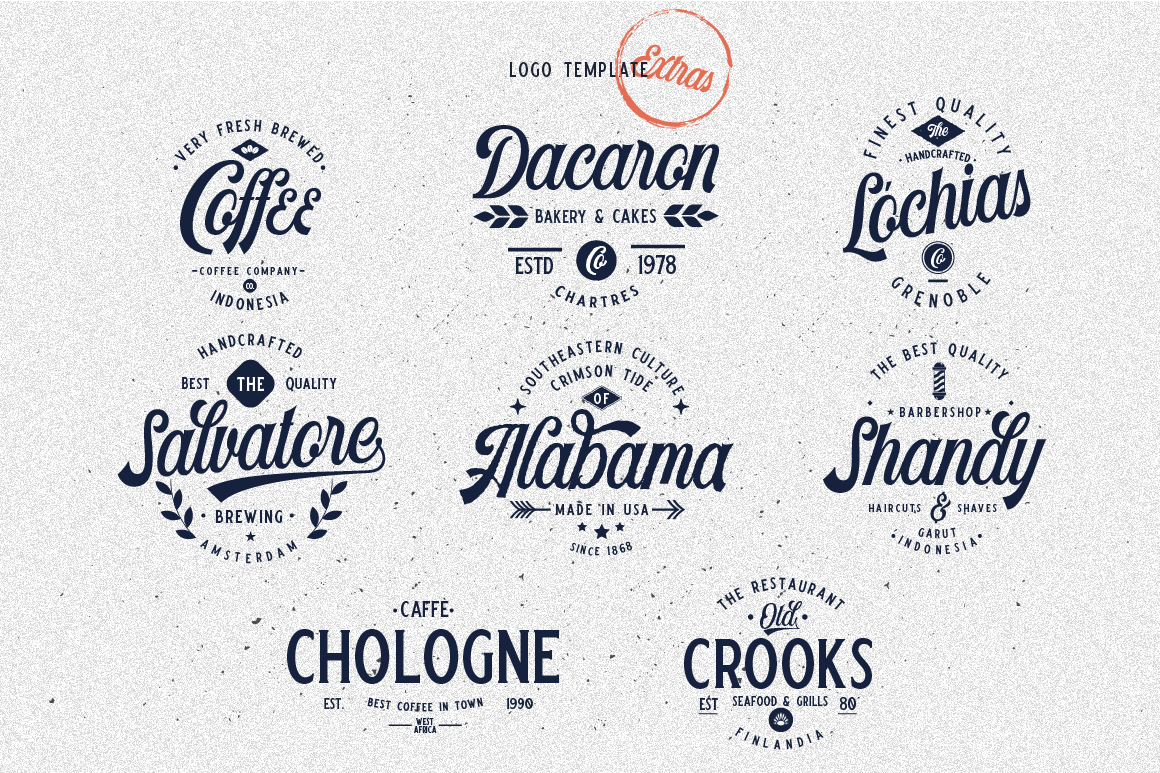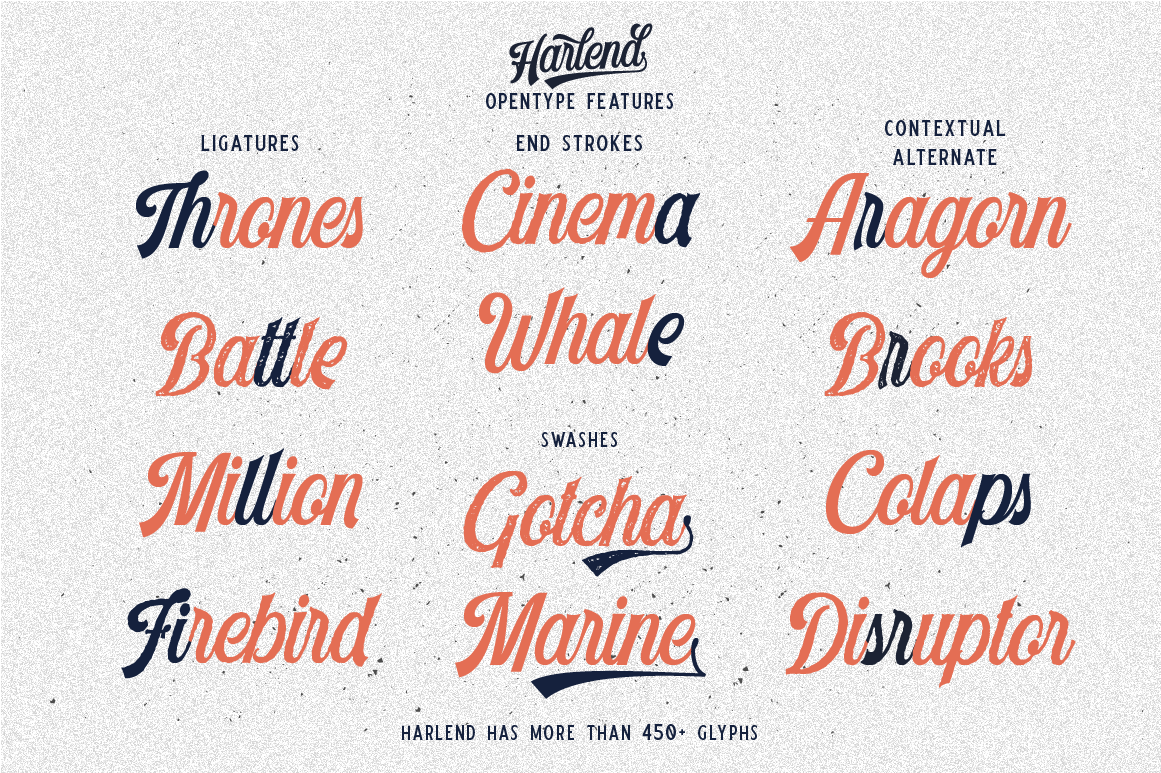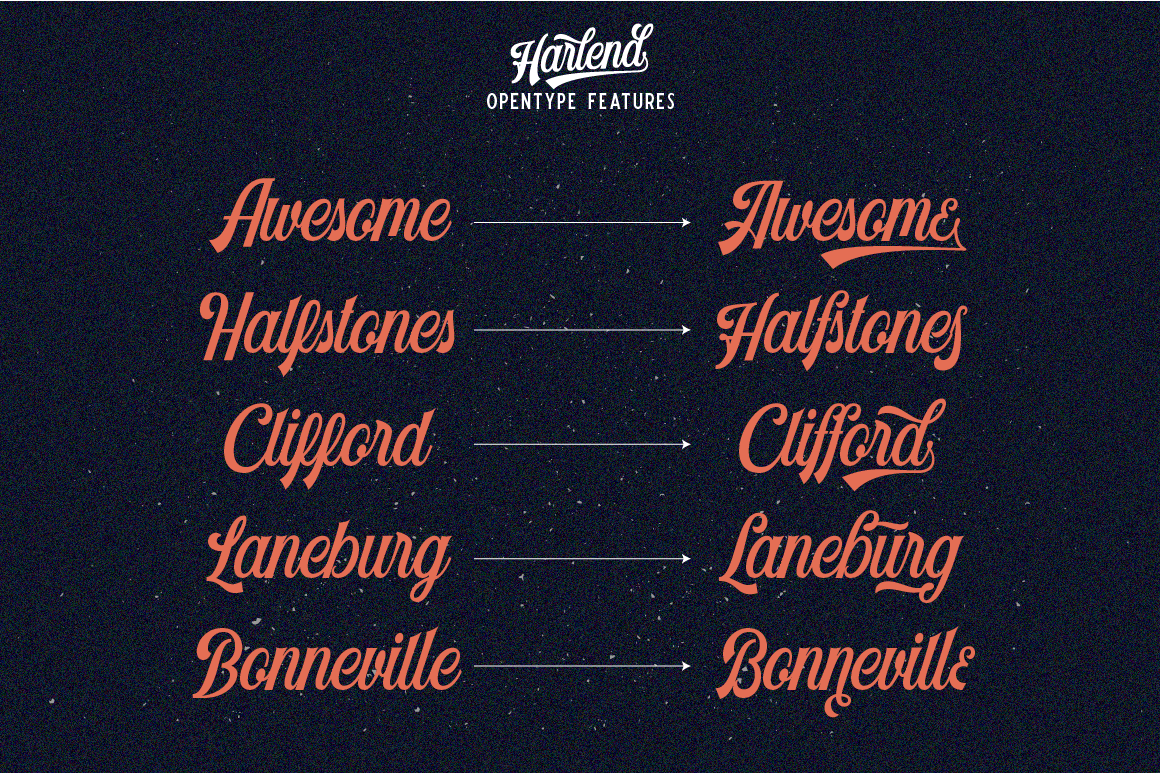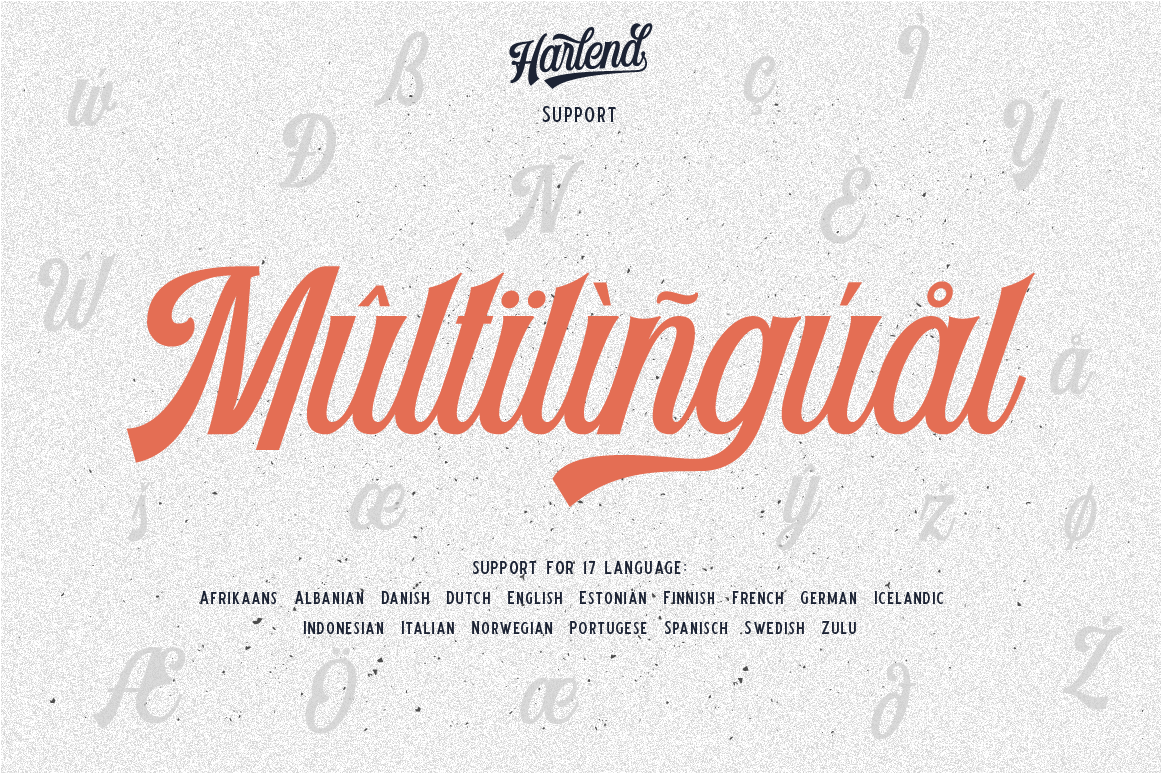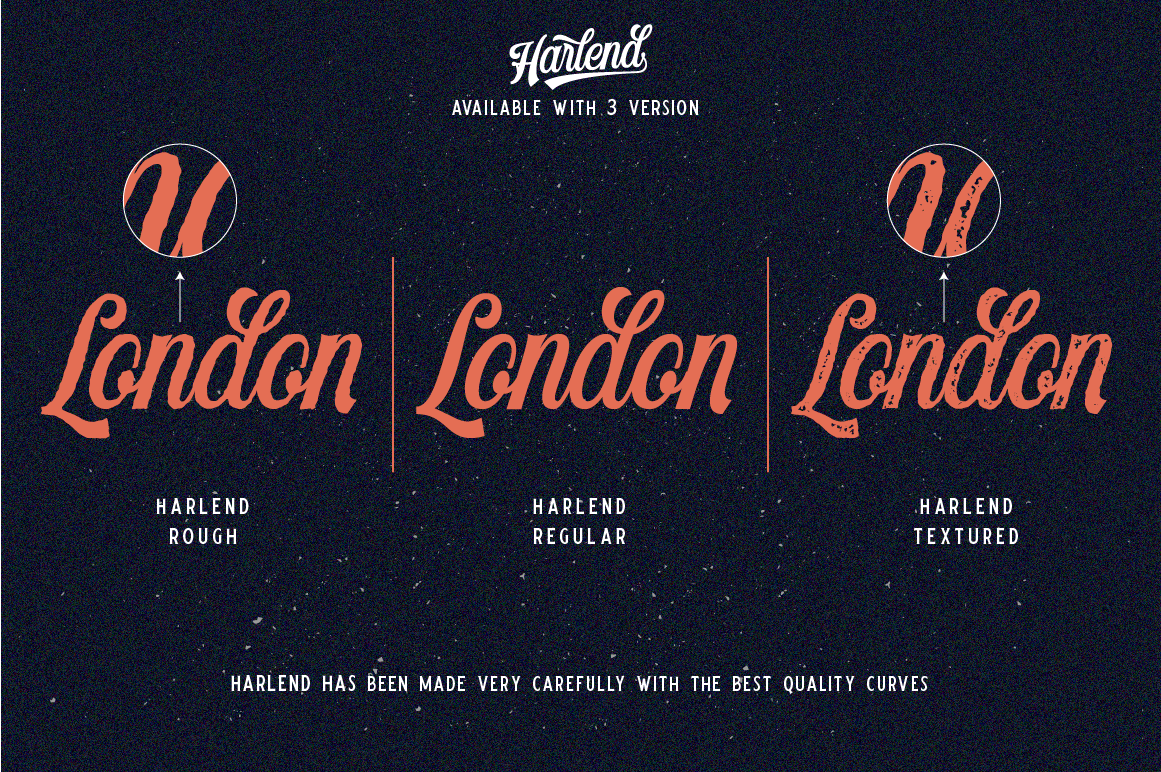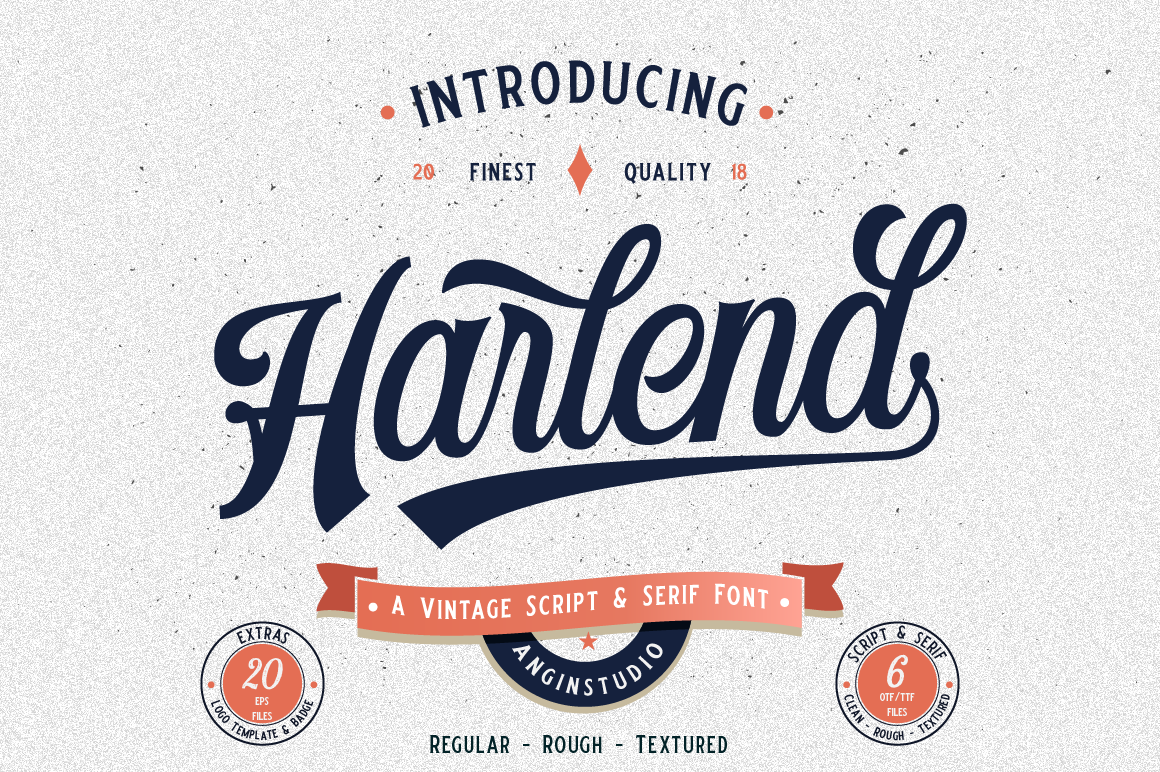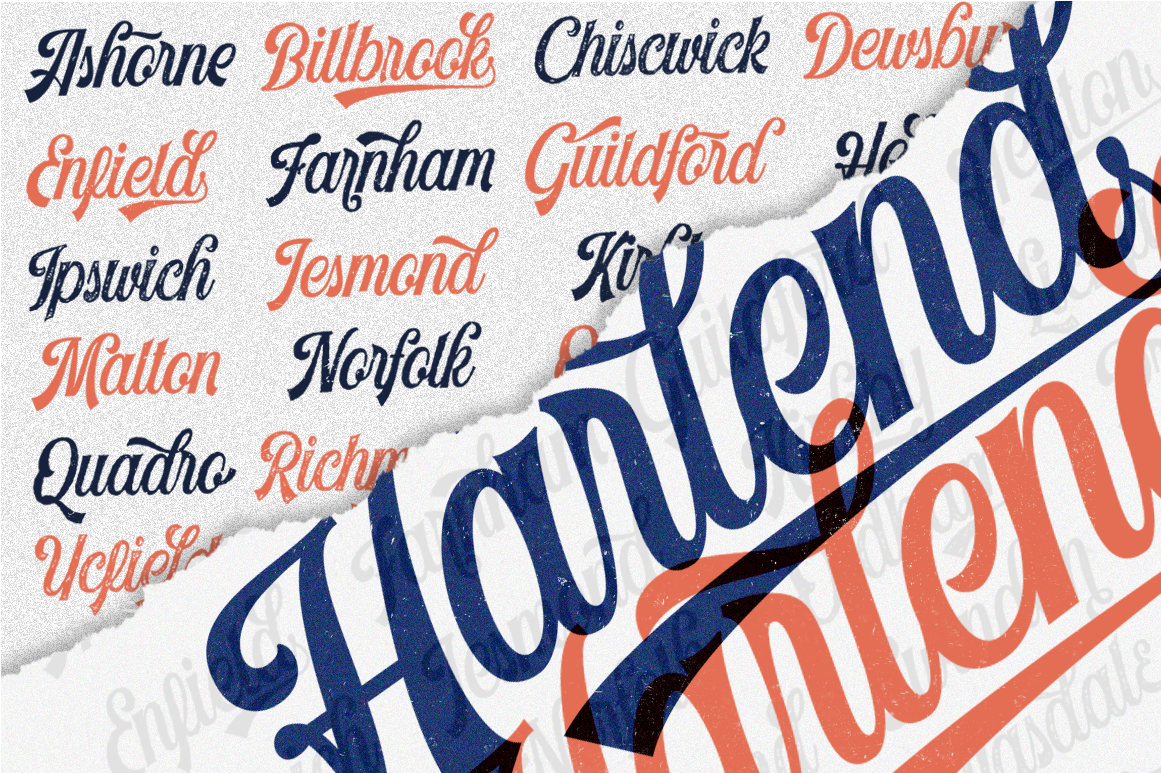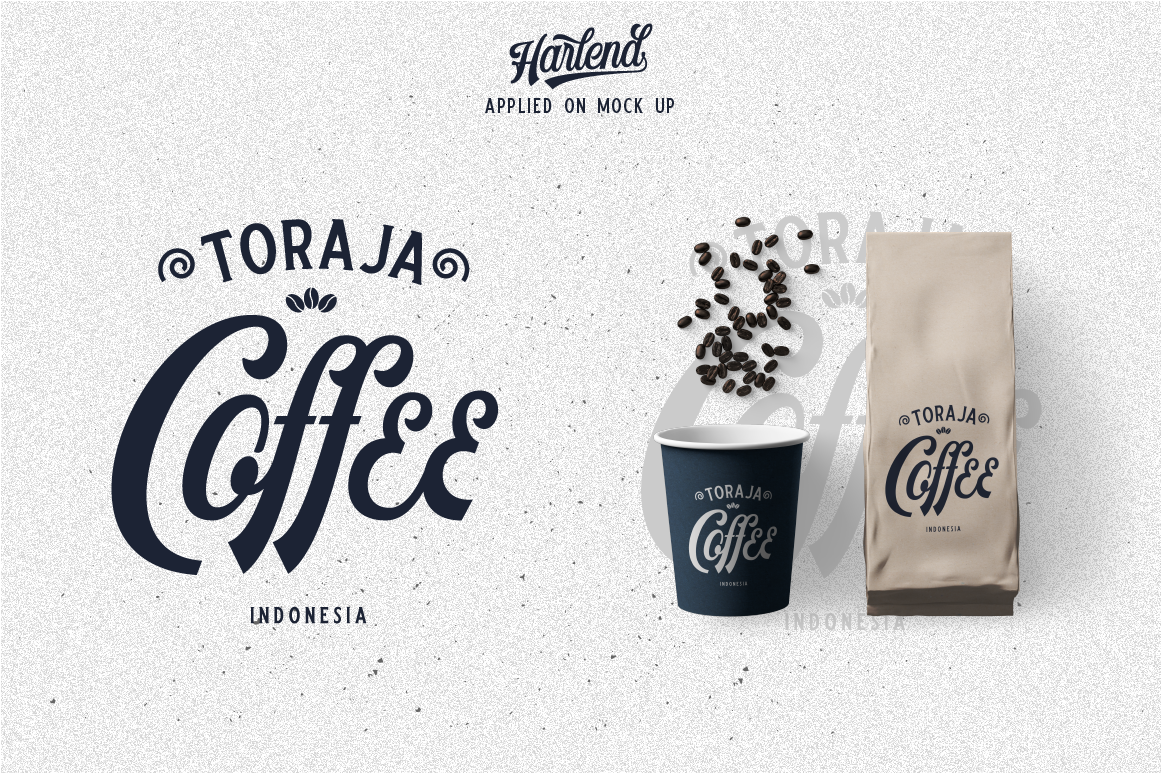
If design is cooking, what we are going to offer you is an ingridients that you can use for making many foods. Let us introduce you to our new font "Harlend" Harlend is a script vintage font created based on our hand lettering inspired by an old american style of sign painting, labels and packaging, created carefully to make an aesthetic touch on every vintage design you'll make. Harlend has an alternates so it will make your design not bored because you have more option to use. This font can be used for logos, labels, prints, t shirt design, etc just let your imagination become the only wall to stop it. whats inside - Harlend clean .otf / .ttf - Harlend rough .otf / .ttf - Harlend textured .otf / .ttf perfectly paired fonts - Crumble regular .otf / .ttf - Crumble outline .otf / .ttf - Crumble textured .otf / .ttf Extras - Logo templates - Bedge design - Happy creating - check this link to see all glyph : http://bit.ly/2PXIoYr - Email :  - Thank you, we hope you guys enjoy this font as much as we created | Harlend (6 font with bonus) | Angin Studio